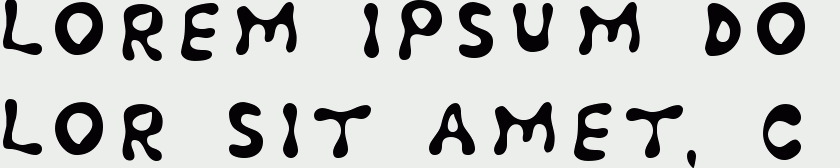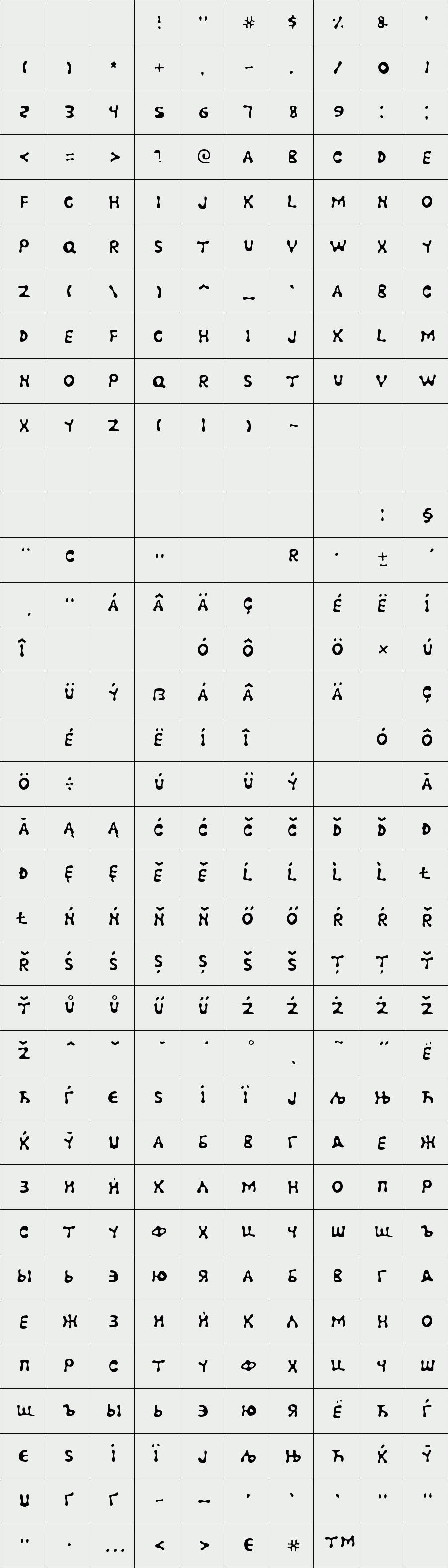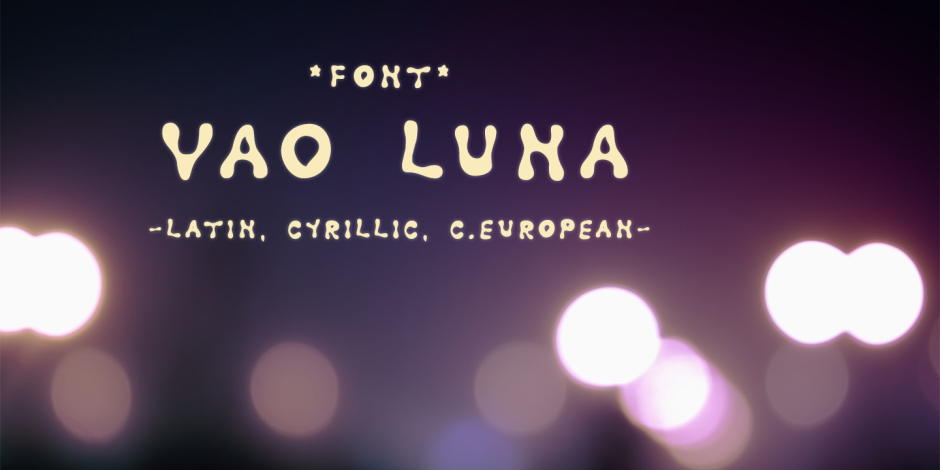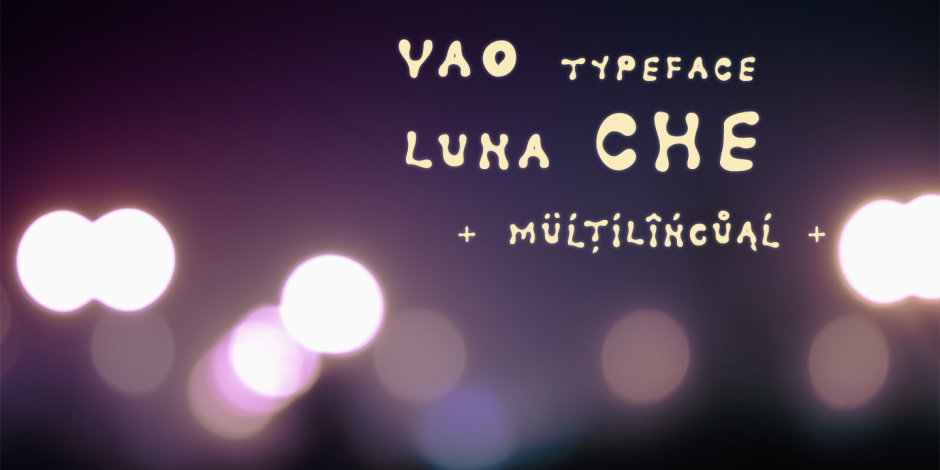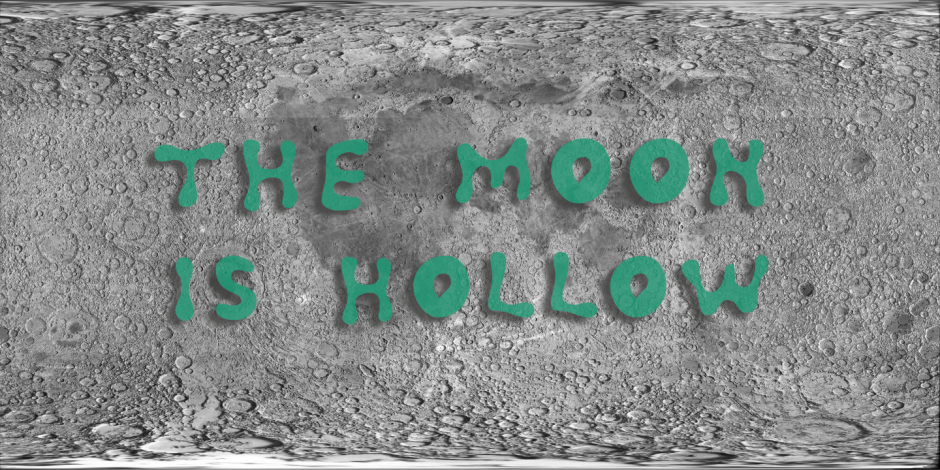
Fufluns Luna
Fufluns Luna typrface is a multilingual display font. The font has a wavy rhythm, and oval forms of symbols. Fufluns Luna font cheerful and joyous like fresh morning dew.
All Caps.
Languages: latin, cyrillic, central european.